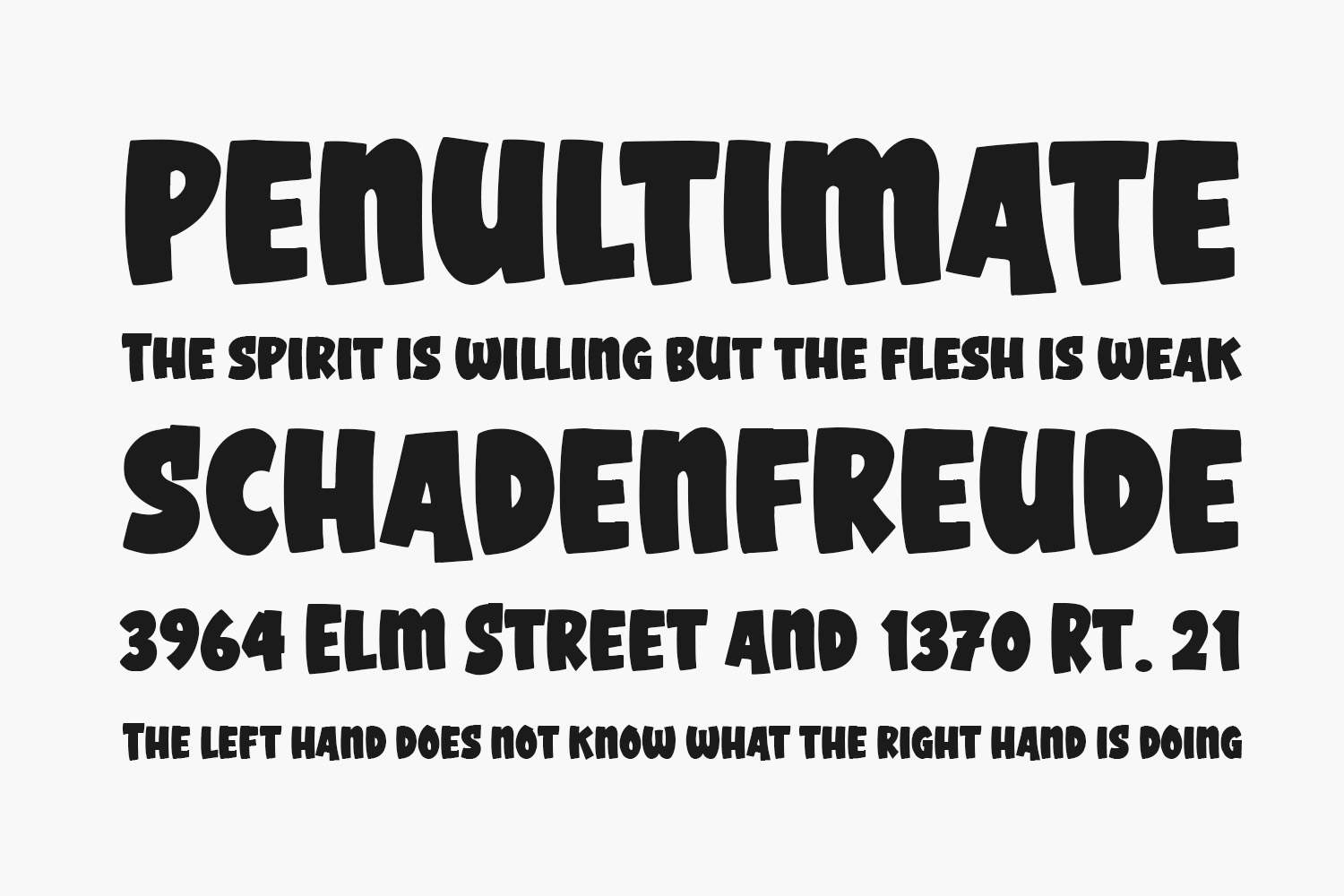
Spooky Cartoon Free Font Family is perfect for a design that makes it more attractive and playful. made with a very good level of aesthetics making this font suitable for book covers, children’s books, comics, posters, packaging, merchandise, logotype, and much more. Spooky Cartoon Free Font Family was designed by Bangkit Tri Setiadi and is free for personal use only. Please purchase the full version for commercial use.
Spooky Cartoon Regular The quick brown fox jumps over the lazy dog
Spooky Cartoon Outline The quick brown fox jumps over the lazy dog